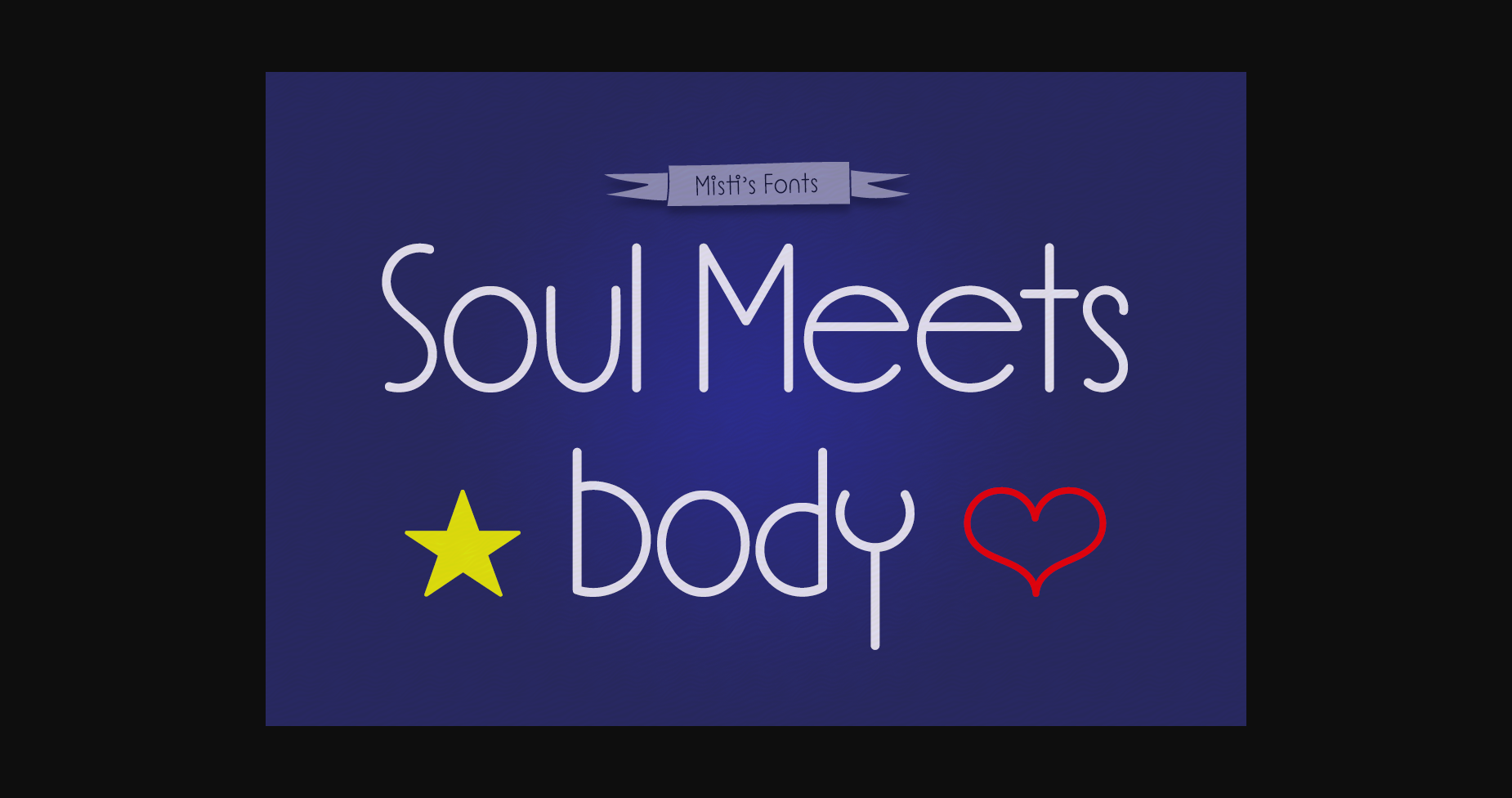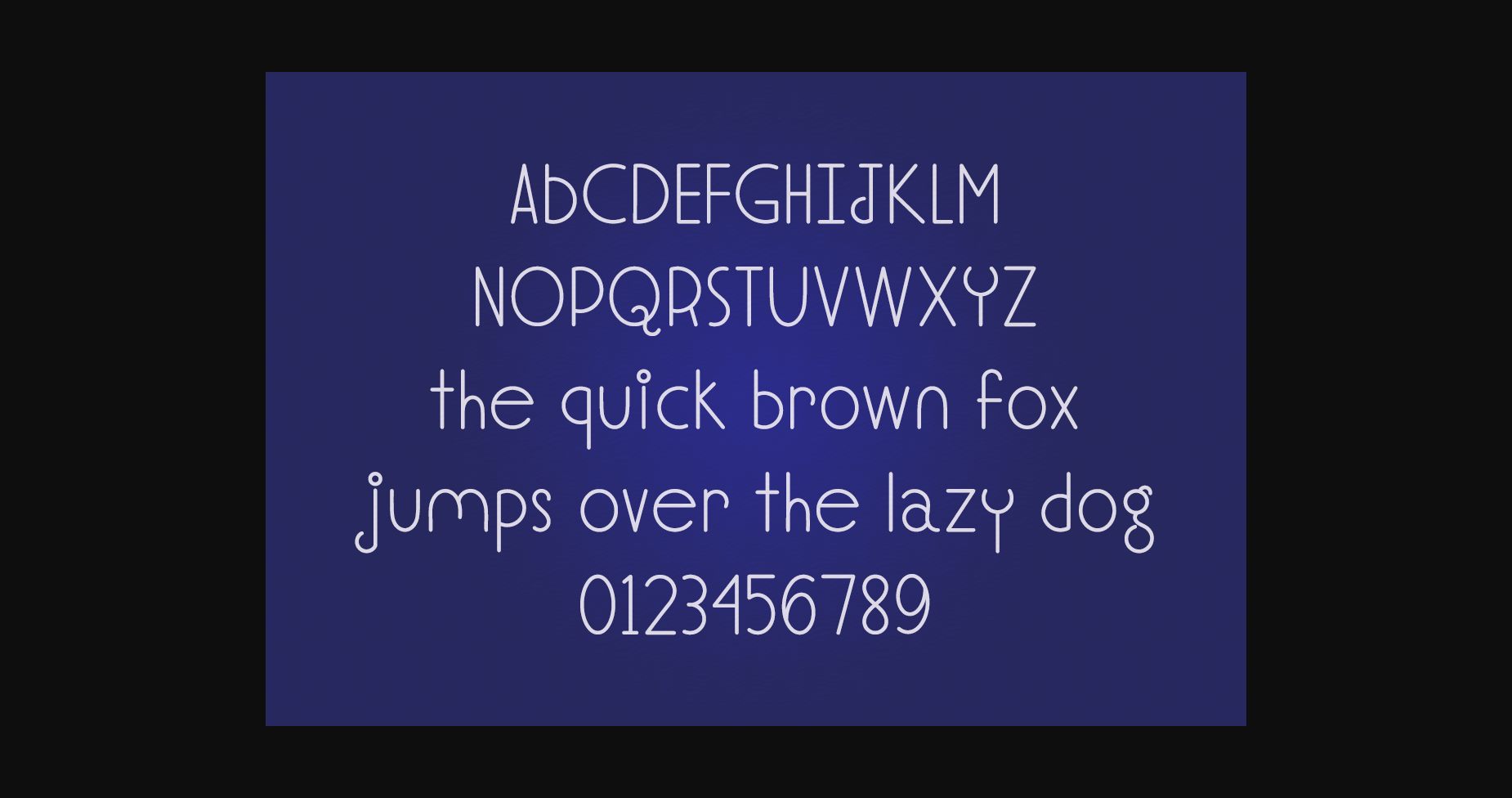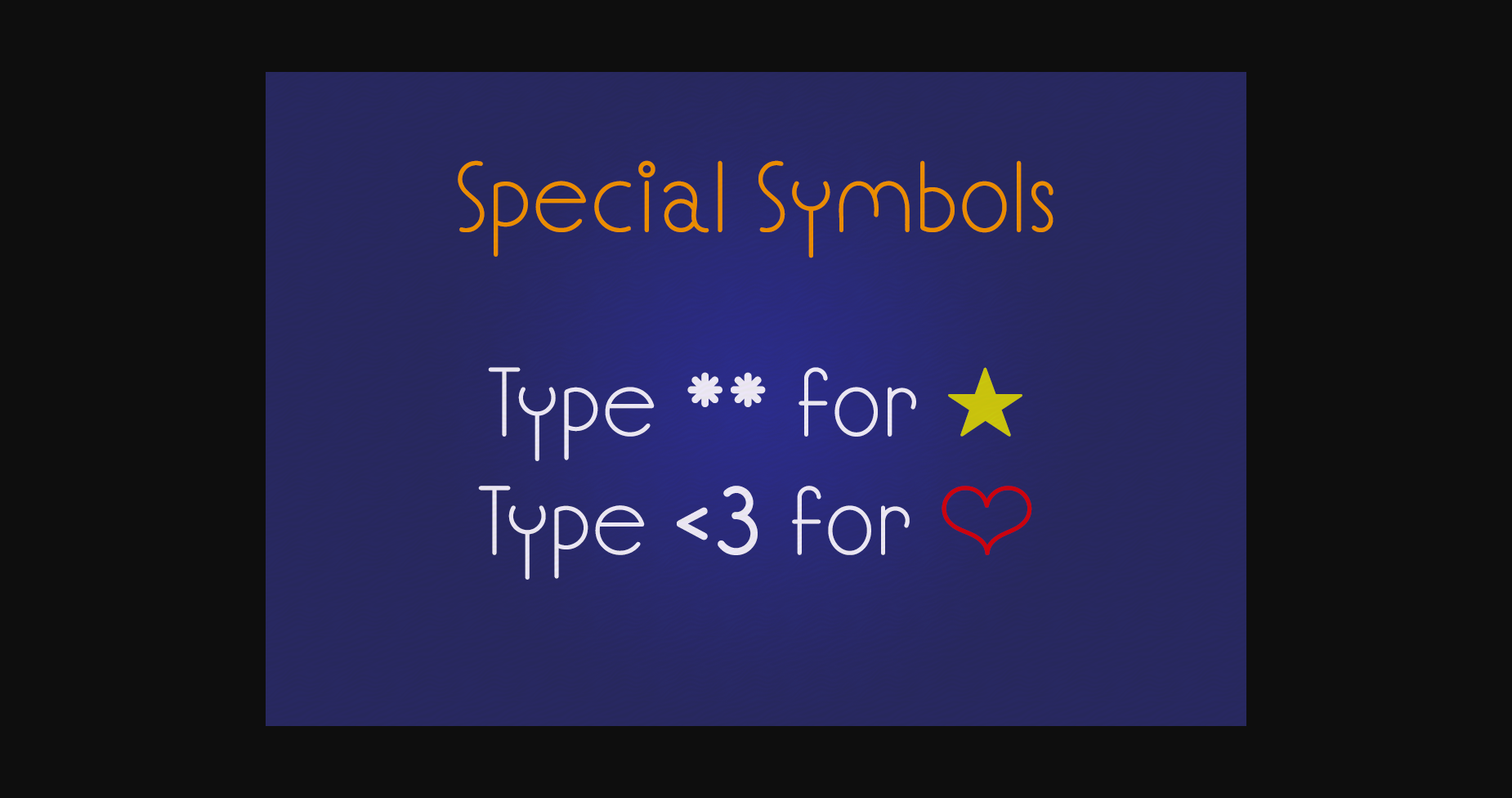
Soul Meets Body Font
About Soul Meets Body Font
Soul Meets Body is a stylish sans serif font, that is perfect for headline texts and logos. It will look stunning on any poster flyer or print.